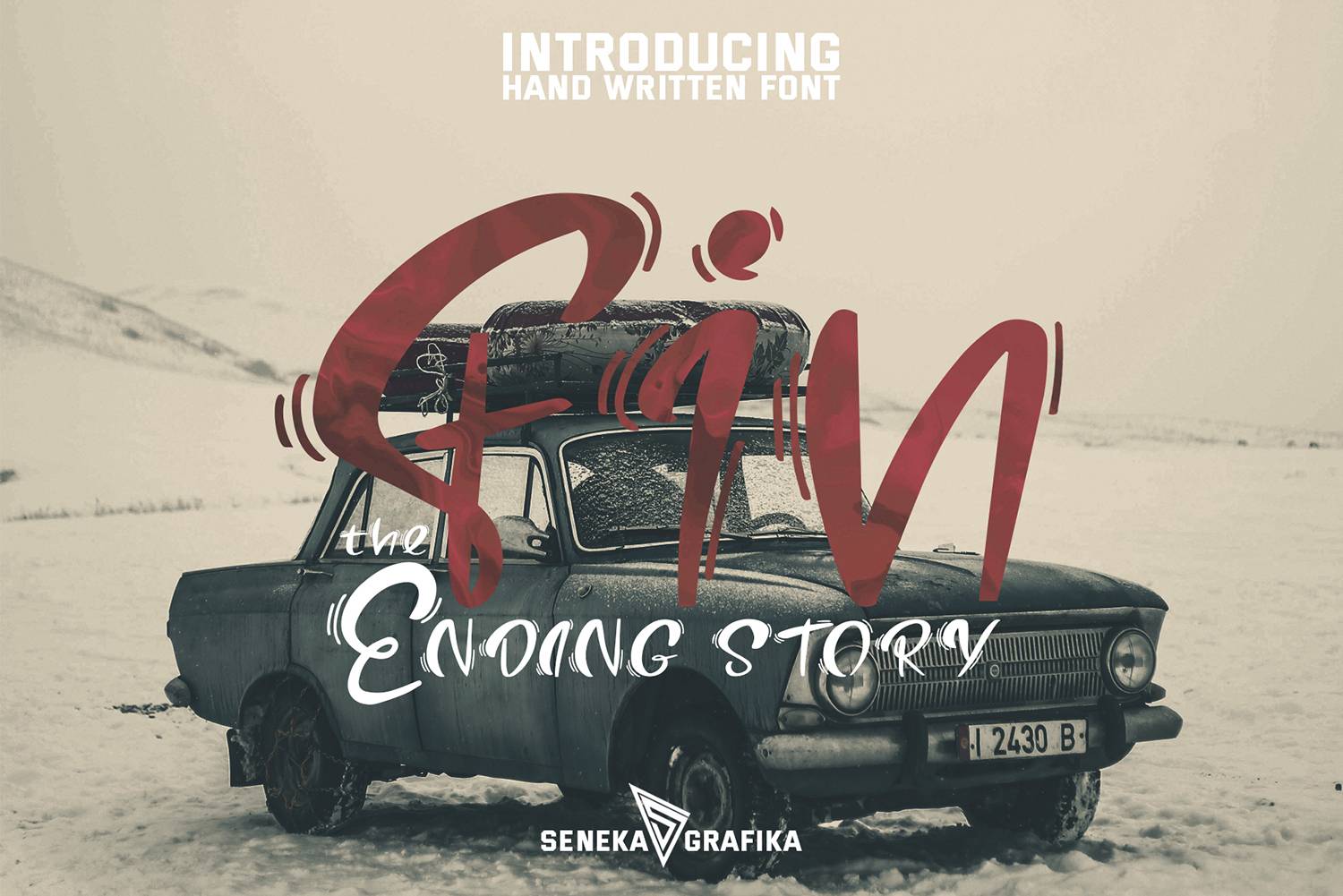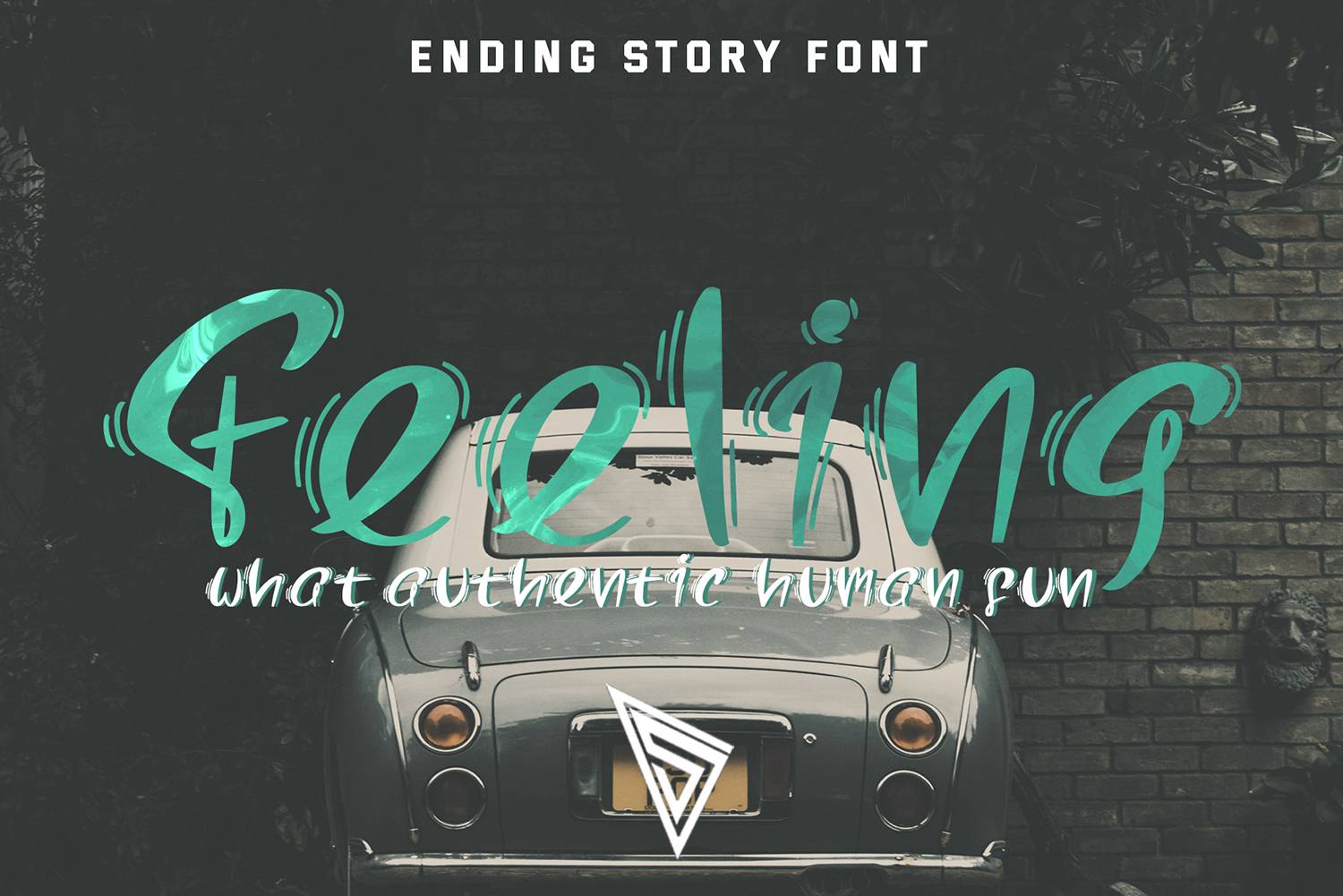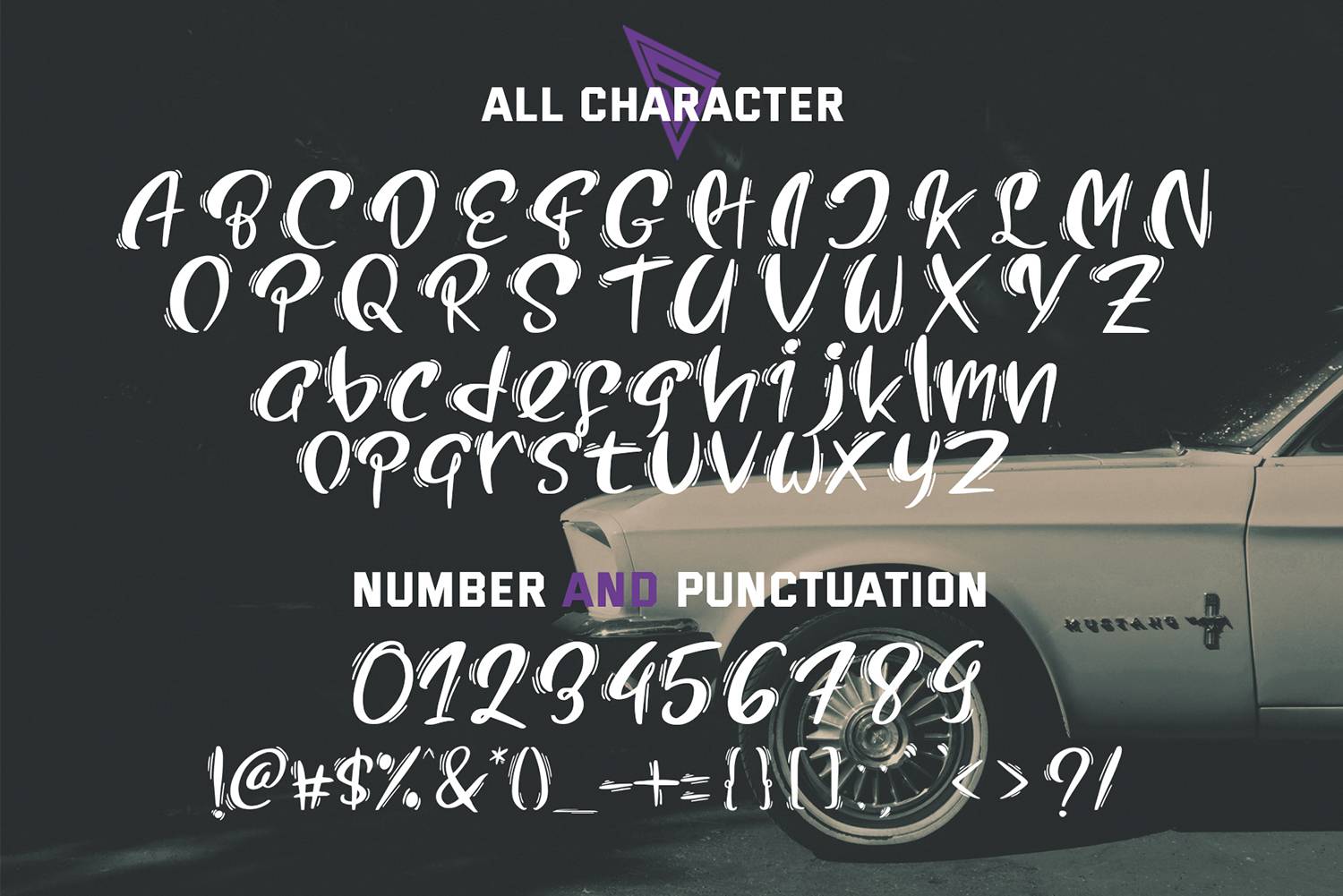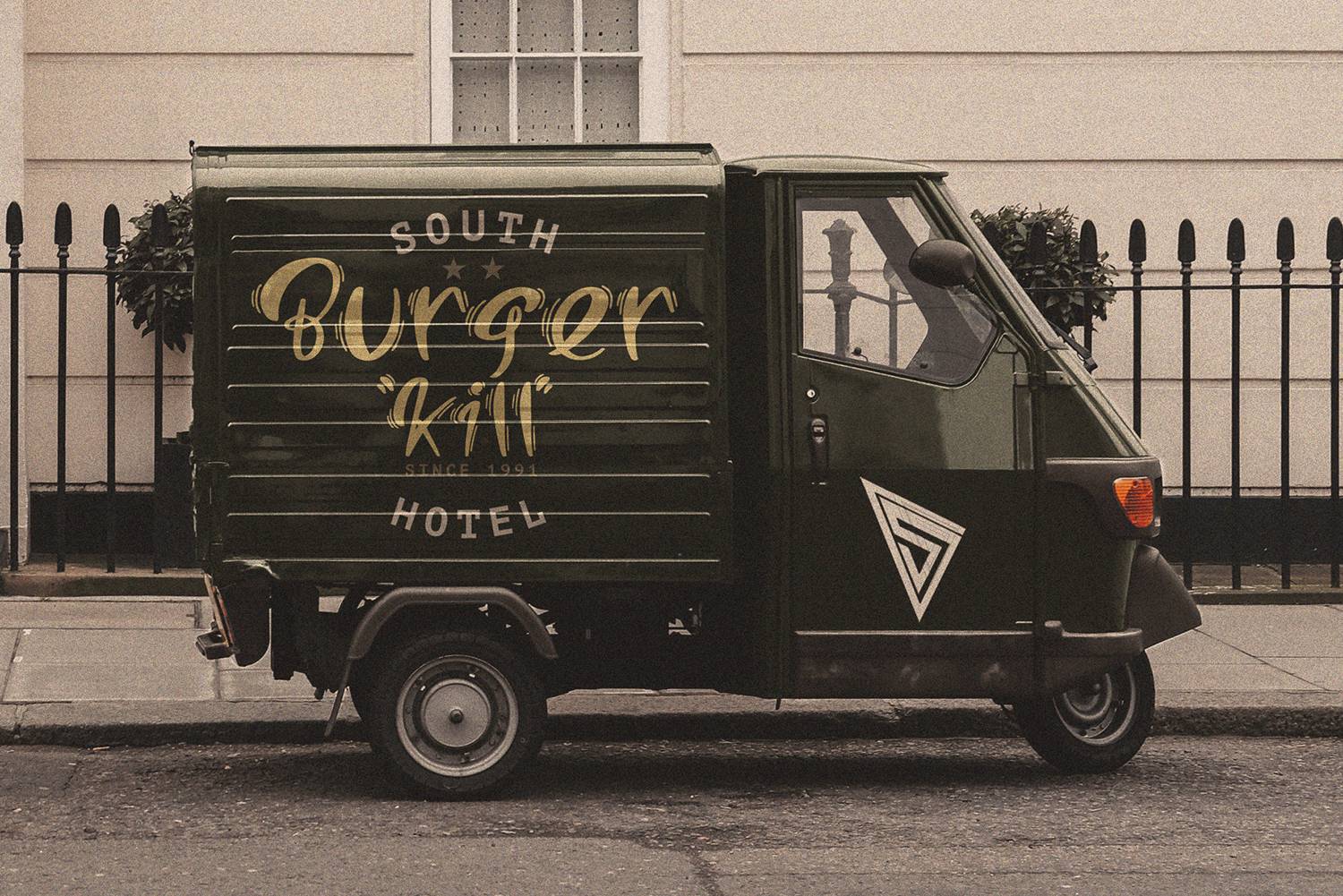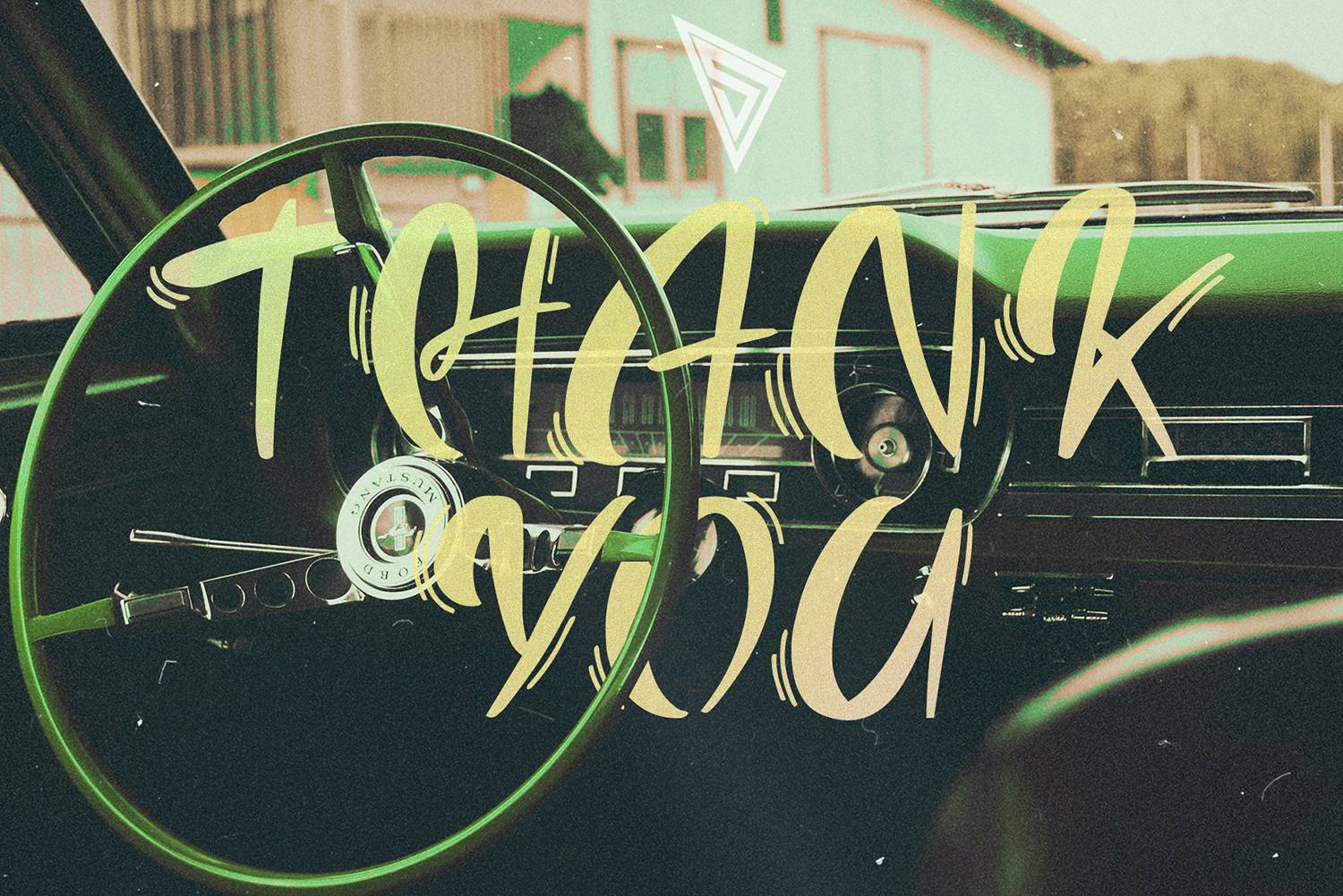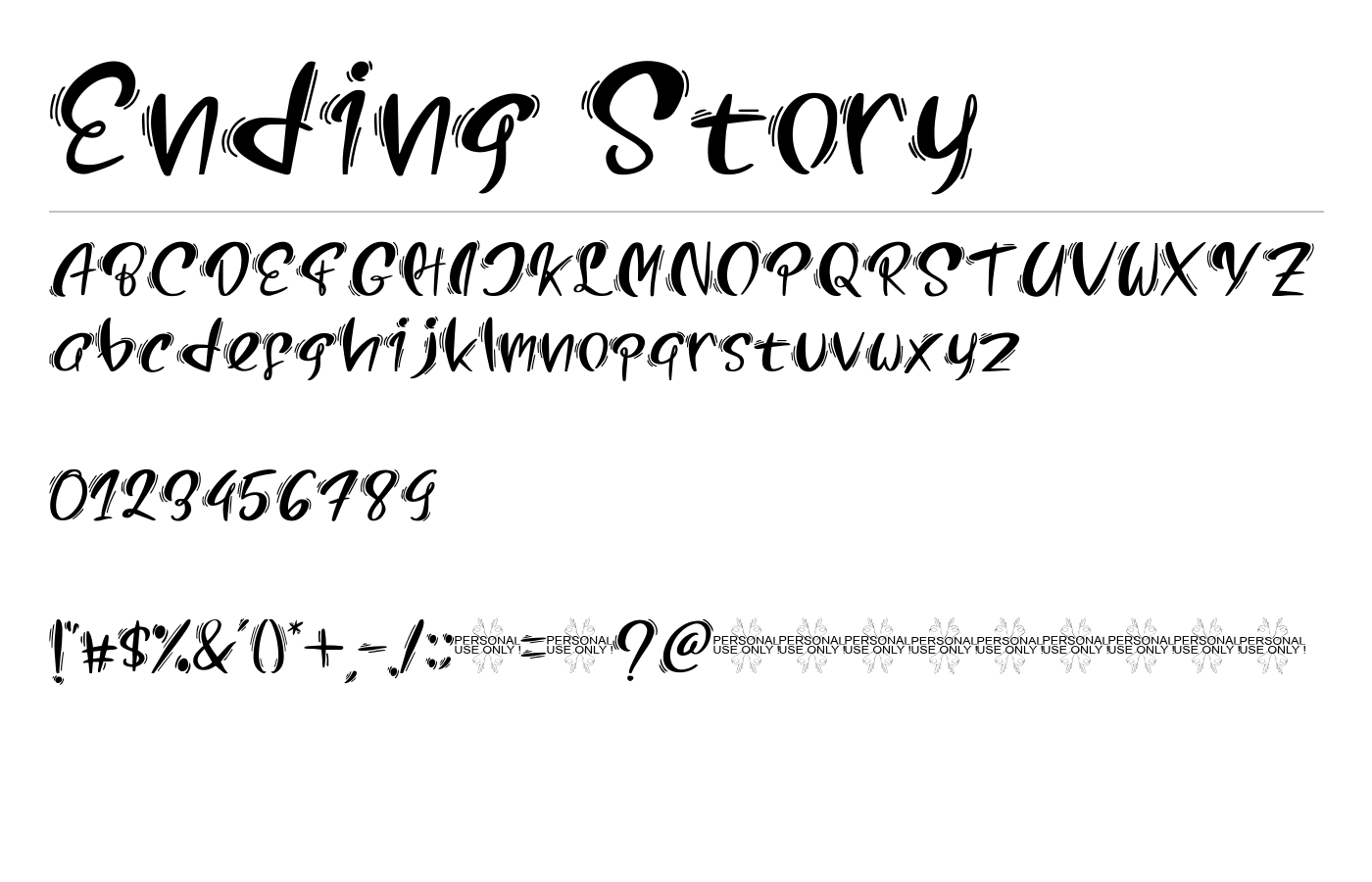
Ending Story is a playful, brush script font with a lively, hand-painted feel created by its uneven strokes and whimsical shapes. Its energetic style works beautifully for creative projects, informal branding, and eye-catching headlines where a personal, artistic touch is desired. This font is perfect for adding personality and warmth to invitations, logos, and social media graphics.
Ending Story Font
| Font family | Ending Story Font |
| Designer | Muhammad Helmi |
| Trademark | Seneka Grafika |